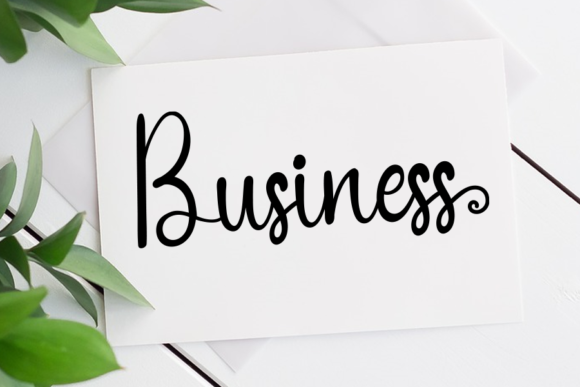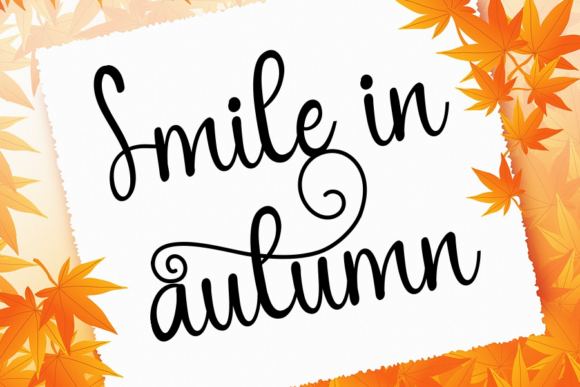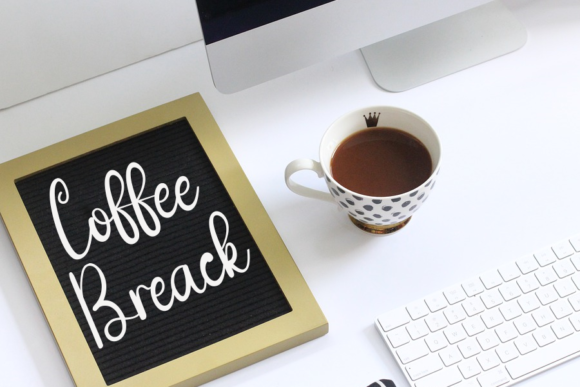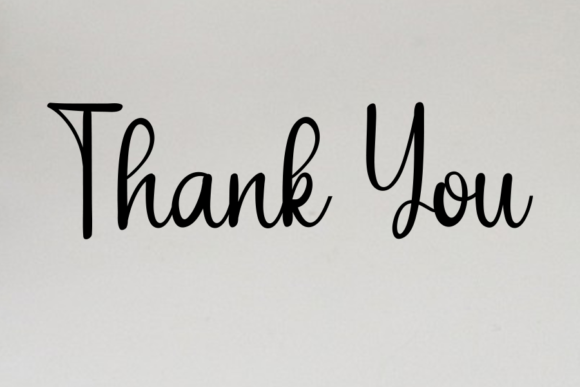
Introducing Christmas Font: The Perfect Handwritten Font for Your Holiday Projects
Are you looking for a beautiful and elegant font to make your holiday projects stand out? Look no further than Christmas Font, a stunning handwritten font that is perfect for a variety of designs and projects. With its unique and elegant style, Christmas Font is sure to add a touch of festive charm to any project.
What is Christmas Font?
Christmas Font is a beautiful handwritten font that is designed to capture the spirit of the holiday season. With its flowing and elegant lines, this font is perfect for creating eye-catching designs that are sure to impress. Whether you’re working on a festive holiday card, a wedding invitation, or a social media post, Christmas Font is the perfect choice.
What Can I Use Christmas Font For?
Christmas Font is a versatile font that can be used for a wide range of projects and designs. Here are some ideas to get you started:
- Wall Displays: Create a stunning holiday display with Christmas Font. Use it to create a festive banner or sign that will add a touch of elegance to any room.
- Wedding Invitations: Make your wedding invitations stand out with Christmas Font. This beautiful font is perfect for creating elegant and sophisticated invitations that will set the tone for your special day.
- Social Media Post Logos: Add a touch of festive charm to your social media posts with Christmas Font. Use it to create eye-catching logos and graphics that will make your posts stand out.
- Advertisements: Create effective and eye-catching advertisements with Christmas Font. This font is perfect for creating bold and attention-grabbing ads that will drive results.
- Product Packaging: Add a touch of elegance to your product packaging with Christmas Font. Use it to create beautiful labels and packaging that will make your products stand out.
- Product Designs: Create stunning product designs with Christmas Font. This font is perfect for creating beautiful and elegant designs that will make your products shine.
- Labels: Use Christmas Font to create beautiful and elegant labels that will add a touch of sophistication to any product.
- Photography: Add a touch of festive charm to your photography with Christmas Font. Use it to create beautiful watermarks and overlays that will make your photos stand out.
- Watermarks: Protect your photos with a beautiful watermark created with Christmas Font.
- Invitations: Create stunning invitations with Christmas Font. This font is perfect for creating elegant and sophisticated invitations that will make your guests feel special.
- Stationery: Add a touch of elegance to your stationery with Christmas Font. Use it to create beautiful and sophisticated stationery that will make your correspondence stand out.
Why Choose Christmas Font?
There are many reasons why Christmas Font is the perfect choice for your holiday projects. Here are a few:
- Unique and Elegant Style: Christmas Font has a unique and elegant style that is sure to make your projects stand out.
- Handwritten Look: This font has a beautiful handwritten look that will add a touch of sophistication to any project.
- Versatile: Christmas Font is a versatile font that can be used for a wide range of projects and designs.
Christmas Font is a beautiful handwritten font that is perfect for a variety of holiday projects and designs. With its unique and elegant style, this font is sure to add a touch of festive charm to any project. Whether you’re a designer, crafter, or DIY enthusiast, Christmas Font is the perfect choice for your holiday projects.